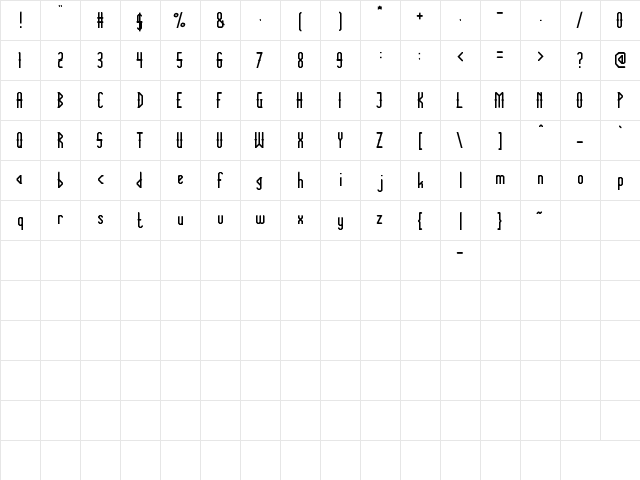
THE INNOCENT ARMY Regular
| Foundry | THE INNOCENT ARMY |
Design Context for THE INNOCENT ARMY Typeface
THE INNOCENT ARMY draws on military and industrial lettering traditions, with forms that communicate strength and precision.
Designed for tactical branding, military-inspired apparel, action game UI, and utility-focused signage.
Font Pairing: Use alongside a condensed or geometric sans for supporting copy — keep the pairing bold, functional, and free of ornament.
Pro Tip: Use THE INNOCENT ARMY at medium-to-large sizes where its utilitarian structure can be appreciated — the character detail gets lost at small sizes.